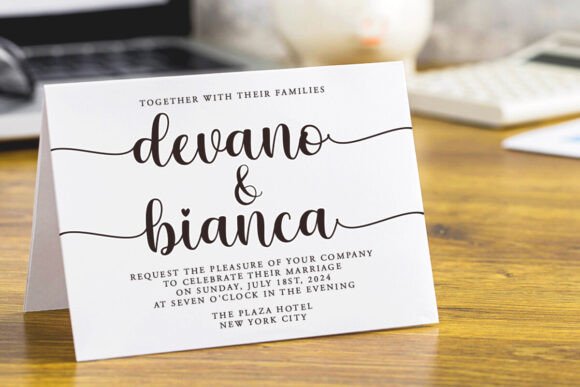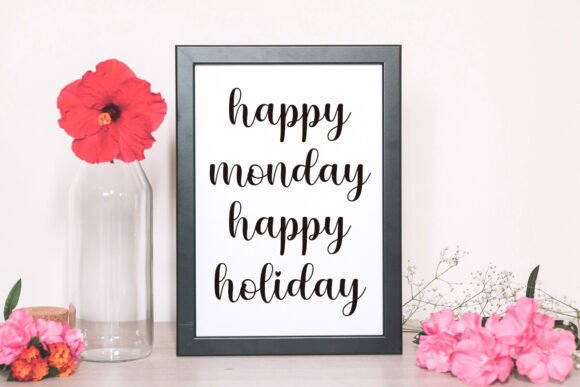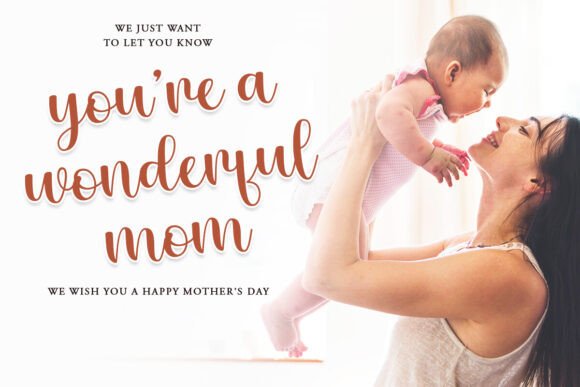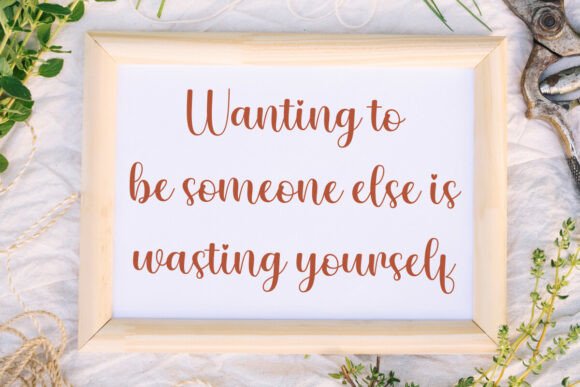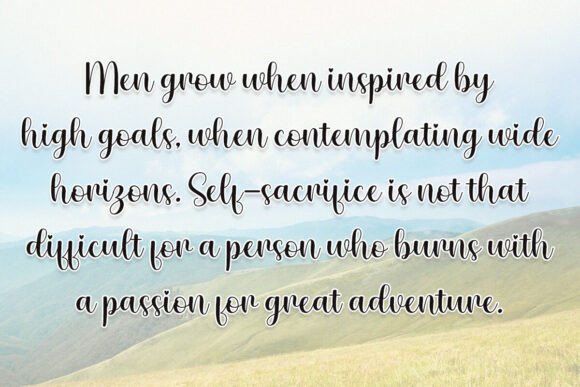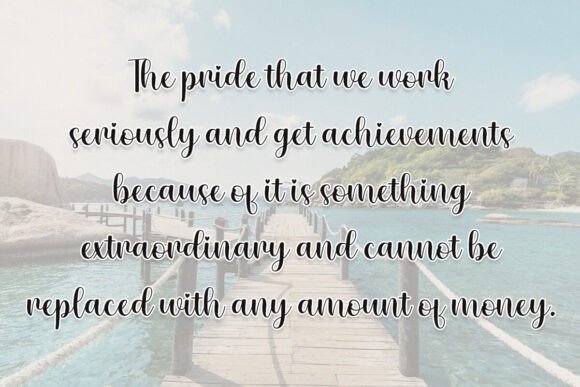
Introducing Andalucia Font: Elevate Your Designs with Elegance and Sophistication
Are you a designer or crafter looking for a font that exudes elegance and sophistication? Look no further than the Andalucia Font. This stunning handwritten font is perfect for adding a touch of refinement to a variety of design projects, from wedding invitations and greeting cards to logos and business cards.
What Makes Andalucia Font So Special?
Andalucia Font is a beautifully crafted handwritten font that boasts a stylish and incredibly elegant aesthetic. Its flowing lines and delicate curves make it perfect for designs that require a touch of sophistication and whimsy. Whether you’re creating wedding invitations, thank you cards, or quotes, this font is sure to impress.
Andalucia Font is incredibly versatile and can be used for a wide range of design projects, including:
- Quotes and typography art
Wherever you need to add a touch of elegance and sophistication, Andalucia Font is the perfect choice.
One of the best things about Andalucia Font is that it’s PUA (Private Use Area) encoded. This means that you can access all of the glyphs and alternates with ease, giving you complete creative control over your designs. With PUA encoding, you can:
- Access a wide range of alternative characters and glyphs
- Customize your designs with ease
- Create unique and complex typography
Why Choose Andalucia Font?
So why should you choose Andalucia Font for your design projects? Here are just a few reasons:
- Elegance and sophistication: Andalucia Font exudes refinement and poise, making it perfect for designs that require a touch of luxury.
- Versatility: This font can be used for a wide range of design projects, from wedding invitations to logos and branding materials.
- Easy to use: With PUA encoding, you can access all of the glyphs and alternates with ease, making it simple to customize your designs.
- High-quality design: Andalucia Font is beautifully crafted with delicate curves and flowing lines, making it perfect for designs that require a touch of whimsy and elegance.
Tips for Using Andalucia Font
Here are a few tips for using Andalucia Font in your design projects:
- Pair with contrasting fonts: Andalucia Font looks stunning when paired with contrasting fonts, such as bold sans-serif fonts or elegant serif fonts.
- Experiment with sizes and colors: Don’t be afraid to experiment with different sizes and colors to add depth and interest to your designs.
- Use for headlines and titles: Andalucia Font is perfect for headlines and titles, where its elegant and sophisticated aesthetic can really shine.
In conclusion, Andalucia Font is a stunning handwritten font that is perfect for designers and crafters looking to add a touch of elegance and sophistication to their designs. With its PUA encoding, versatility, and high-quality design, this font is sure to become a favorite in your design arsenal. So why wait? Download Andalucia Font today and start elevating your designs with elegance and sophistication.